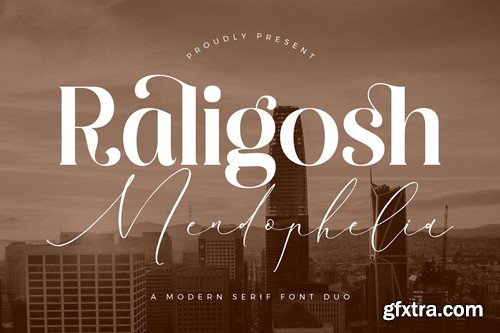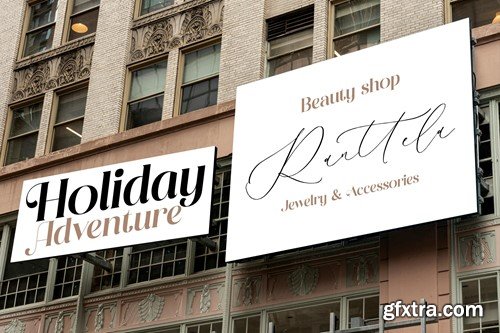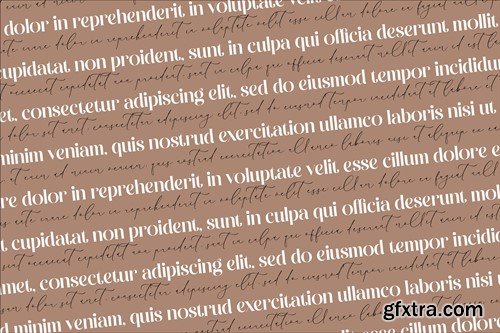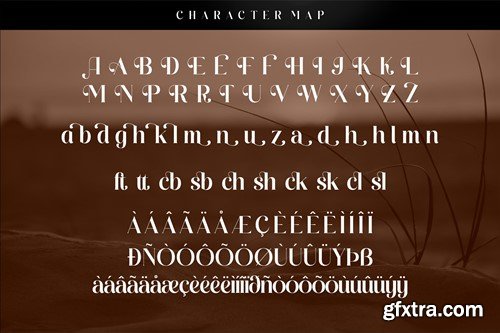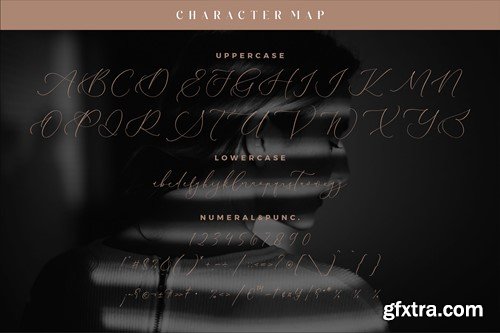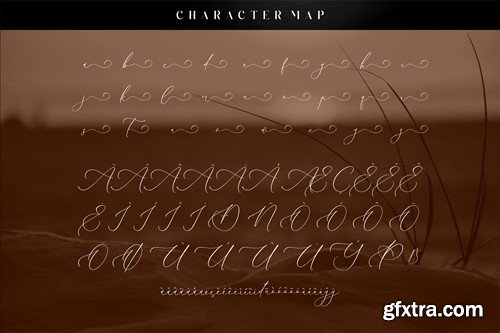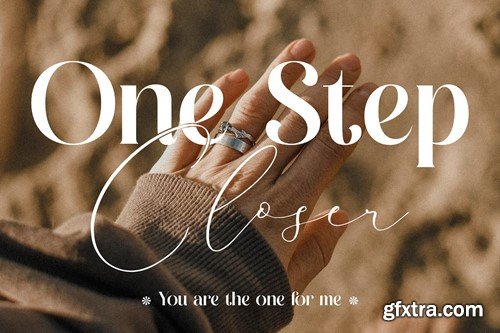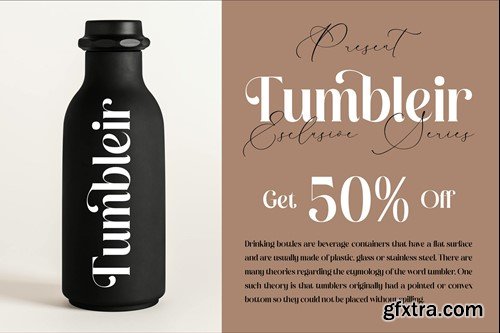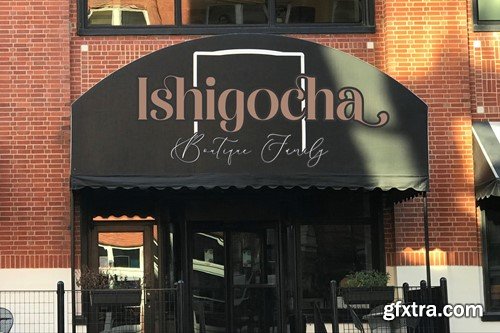
Raligosh Mendophelia Modern Font Duo
Hi ladies & gentlemen, this is one of our fonts suitable to complement your digital and printed creative products. This font is perfect for posters, social media posts, branding, personal projects, etc. Include Files Thank you